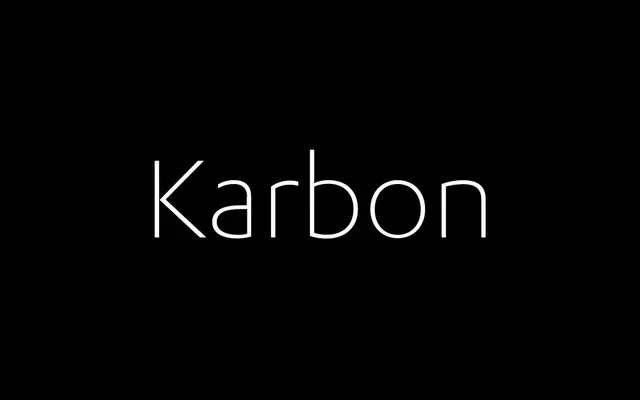
Karbon
Klim Type Foundry · Kris Sowersby · 2009
An open geometric sans crossing Futura's reductionism with Gill Sans proportions, with a Hairline-to-Bold range tuned for display and text.
A geometric sans by Kris Sowersby that runs Paul Renner's reductionist Futura concept through the proportions of Eric Gill's eponymous sans, with a side glance at Jan Tschichold's Uhertype. Fourteen styles span Hairline to Bold with matching italics, giving a wide tonal range from light display setting to functional text. Often picked when a brand wants geometric clarity without Futura's exact silhouette, and pairs naturally with Karbon Slab Stencil for display lockups.
Klim classifies it as Modern: Lineal/Geometric; an open geometric sans exploring Paul Renner's reductionist Futura concept through the proportions of Eric Gill's eponymous sans, with a slight nod to Jan Tschichold's Uhertype sans-serif.